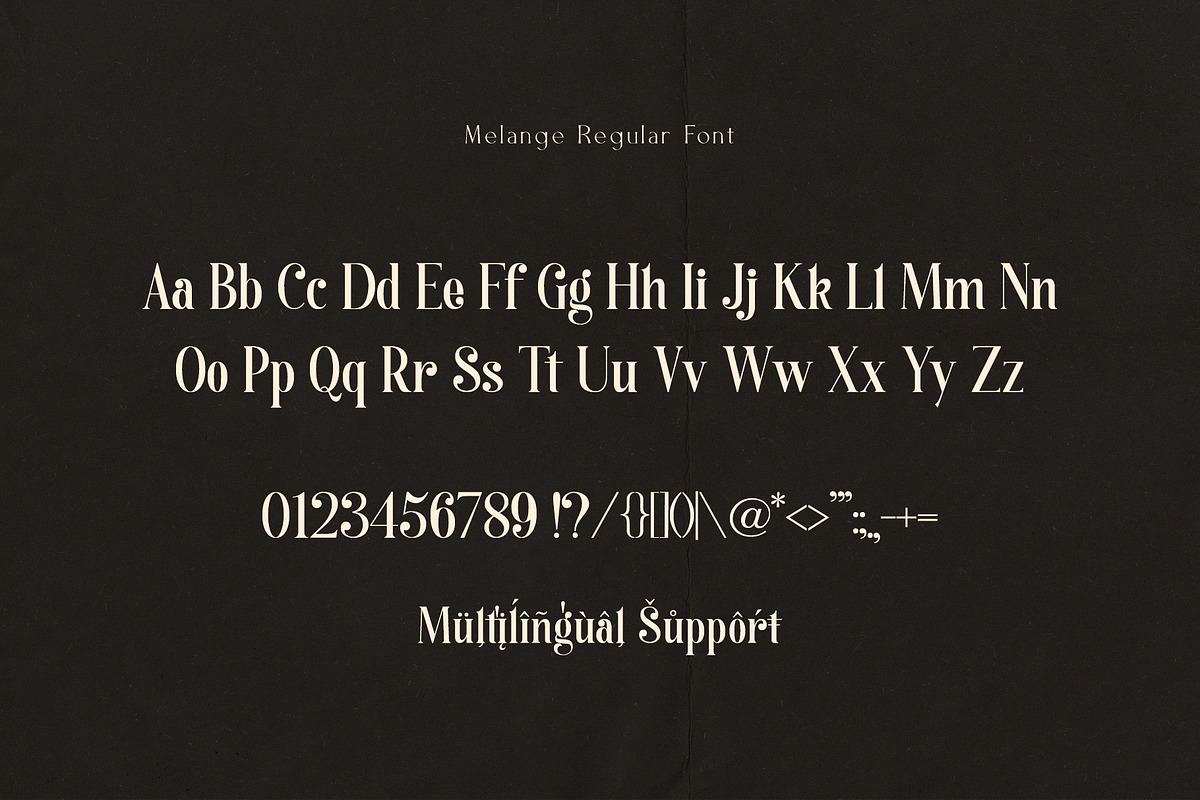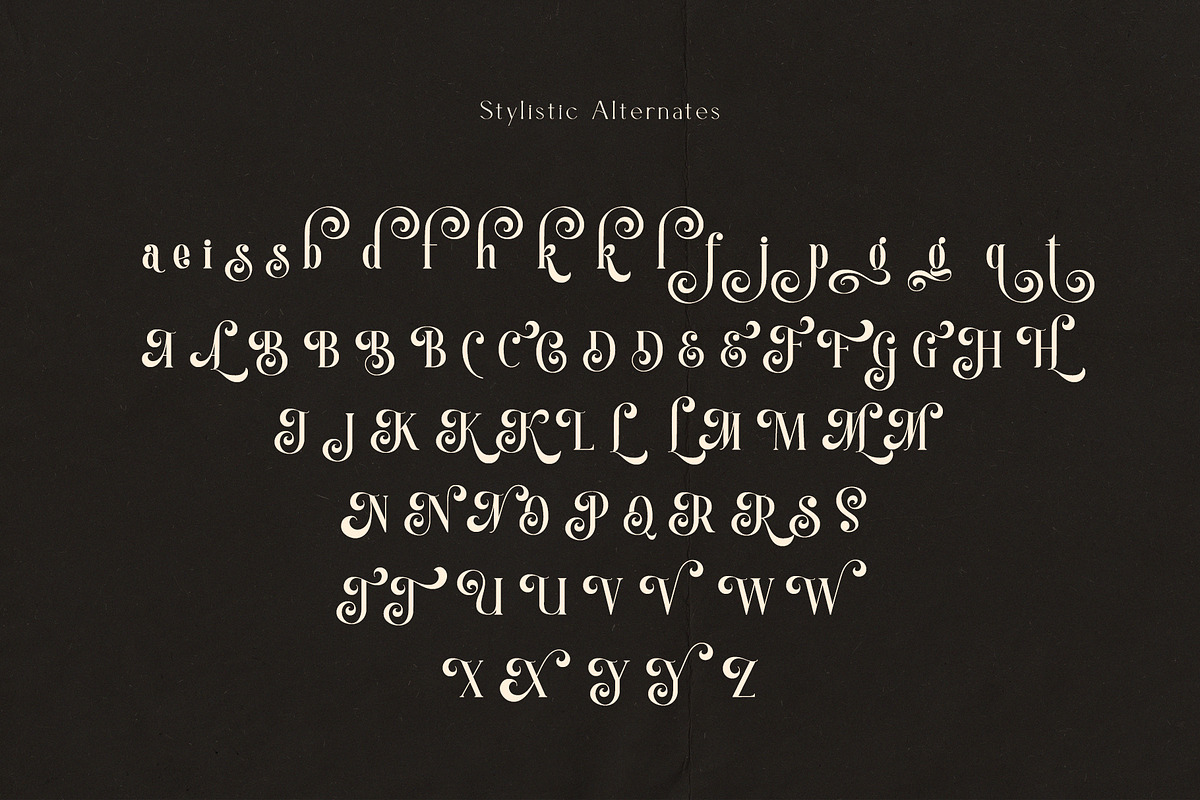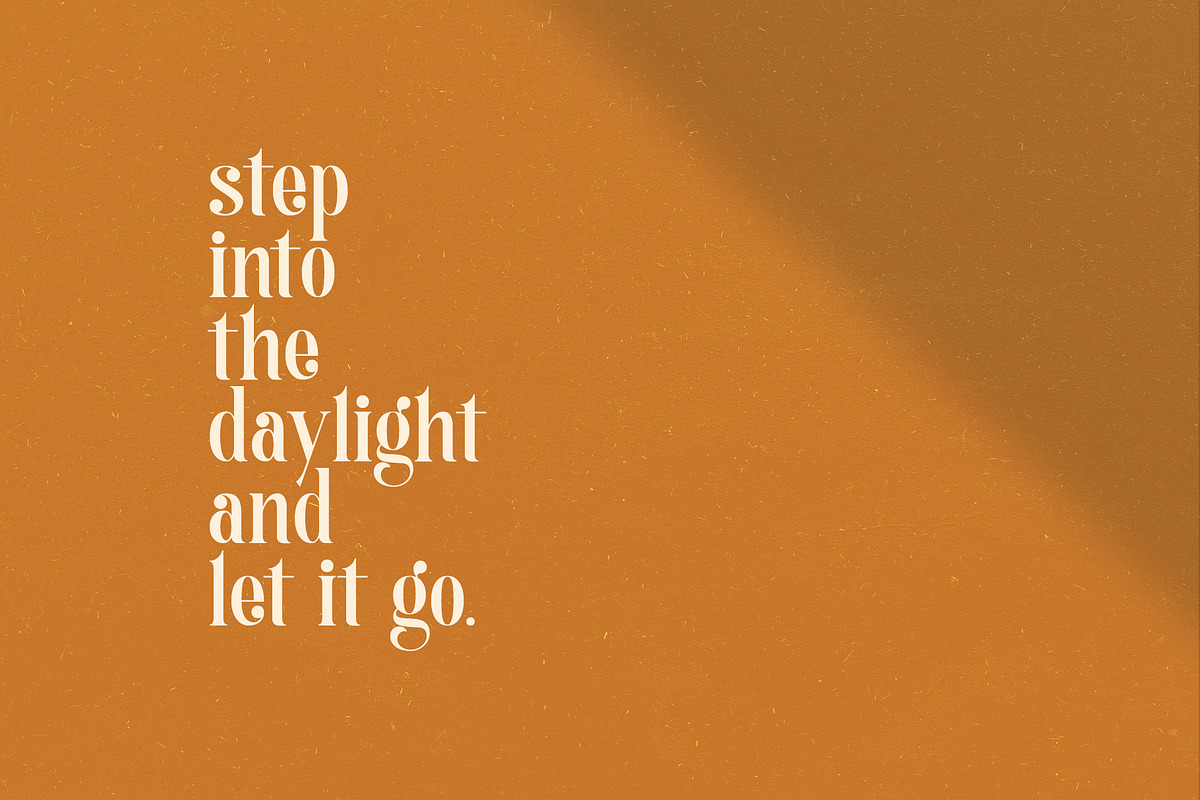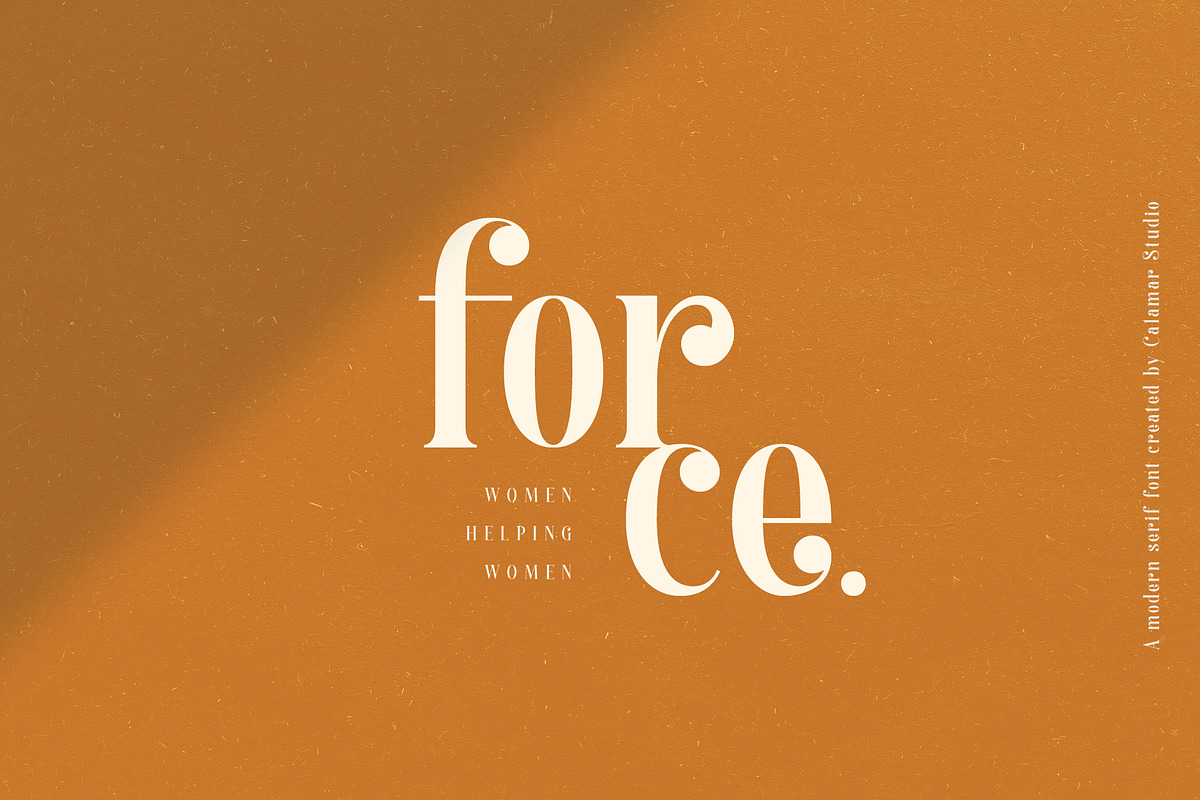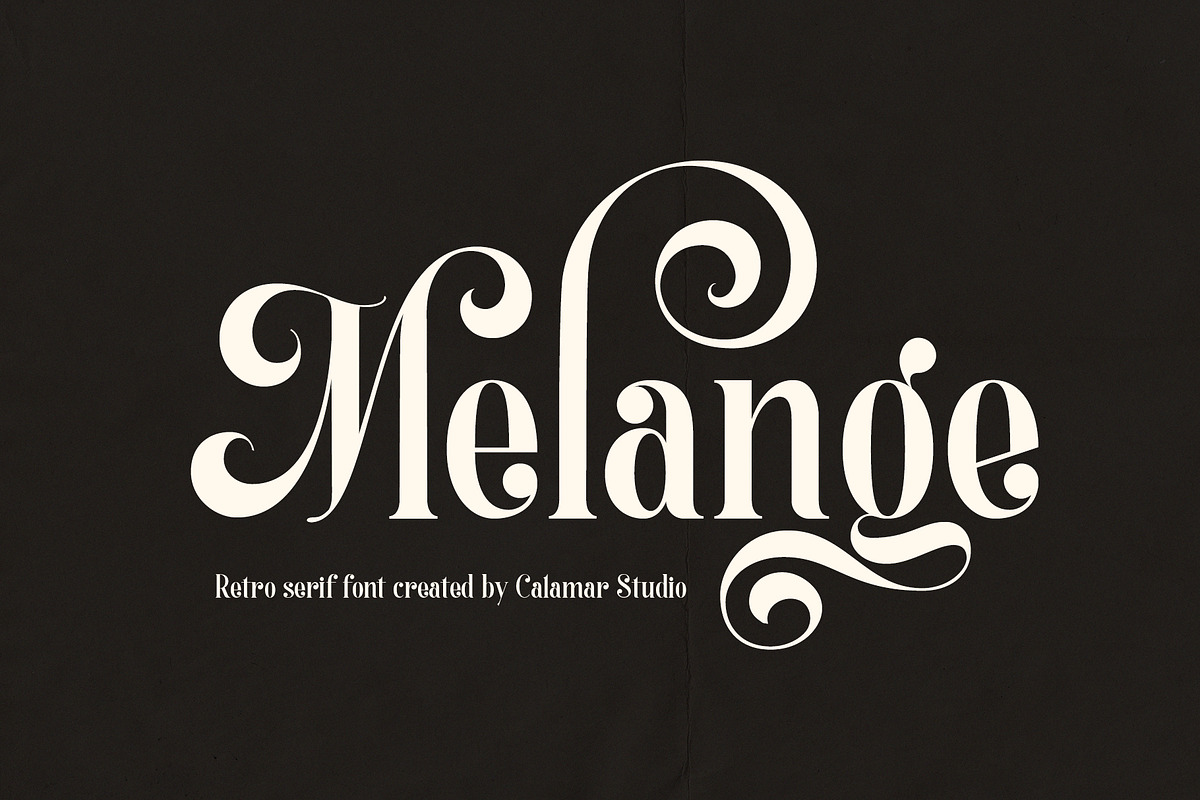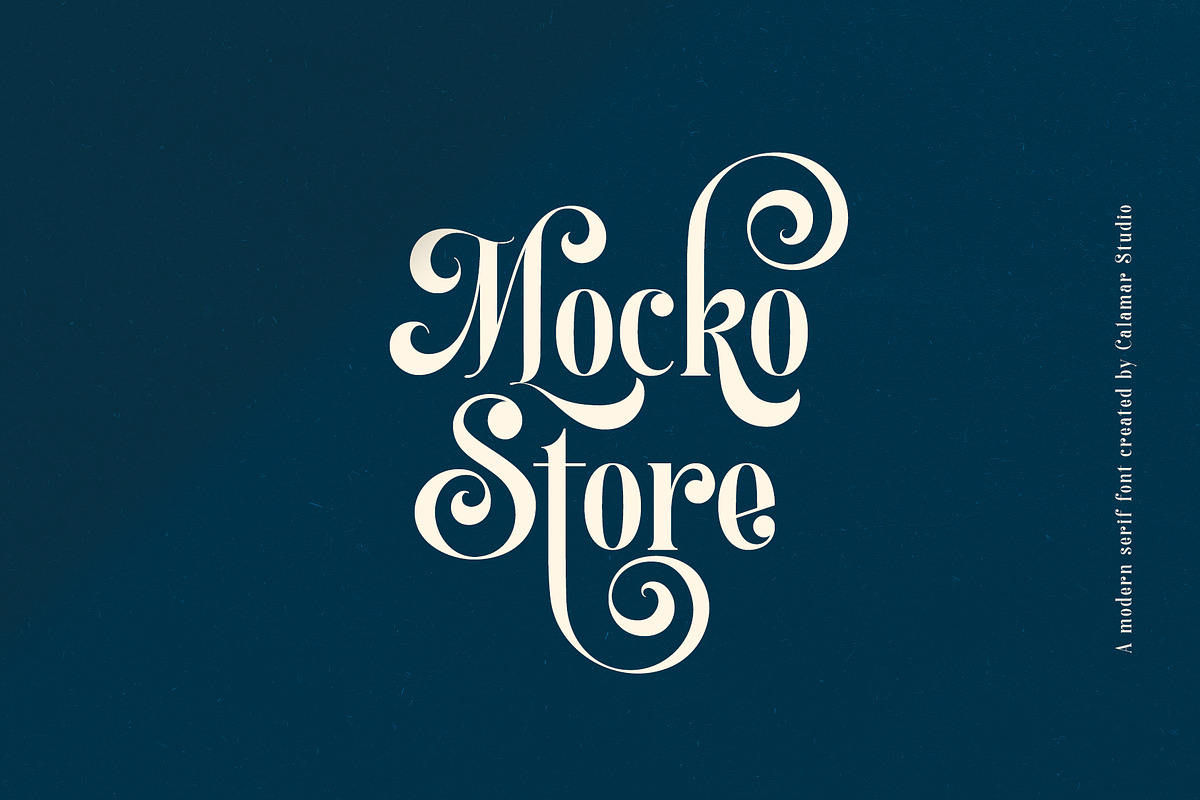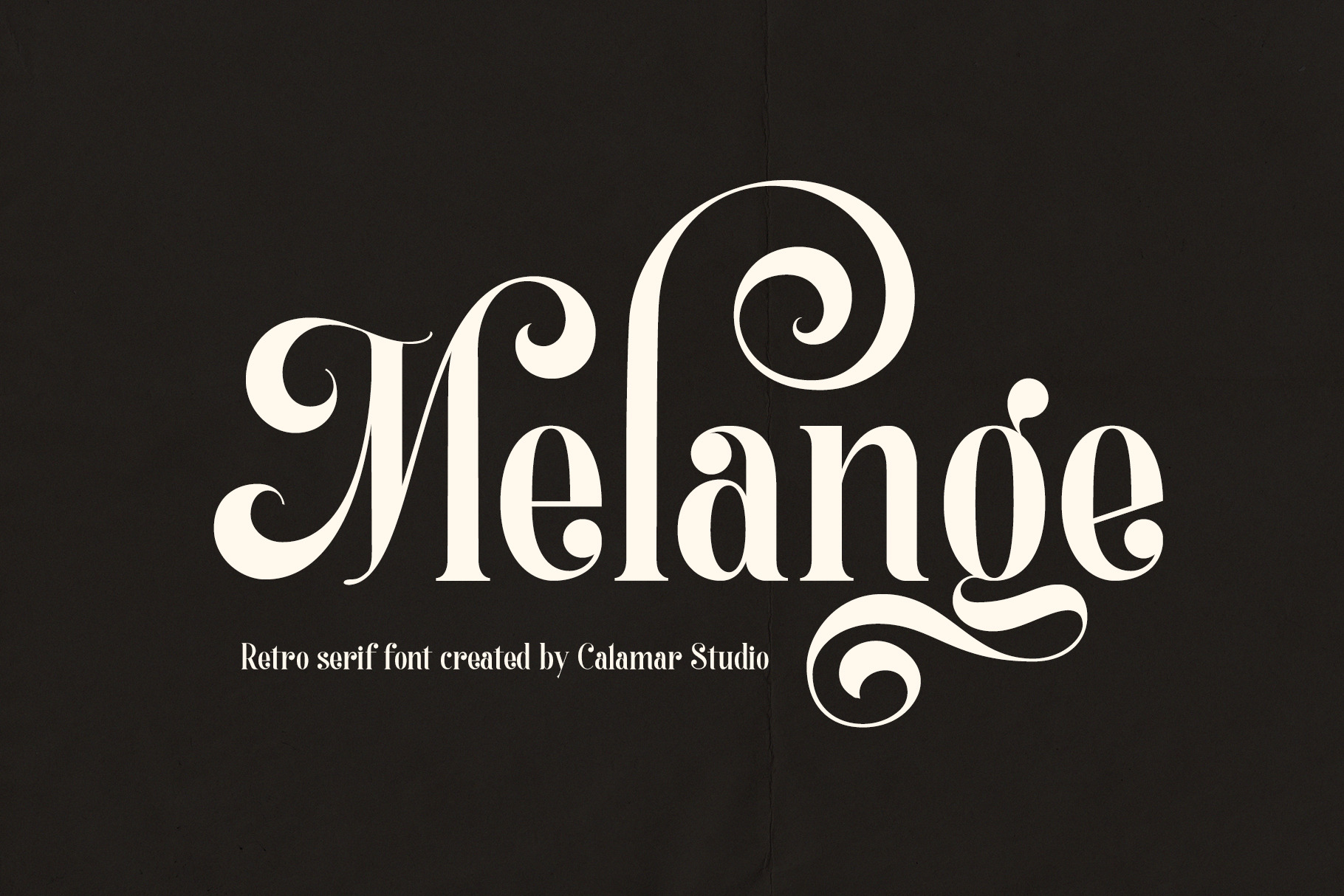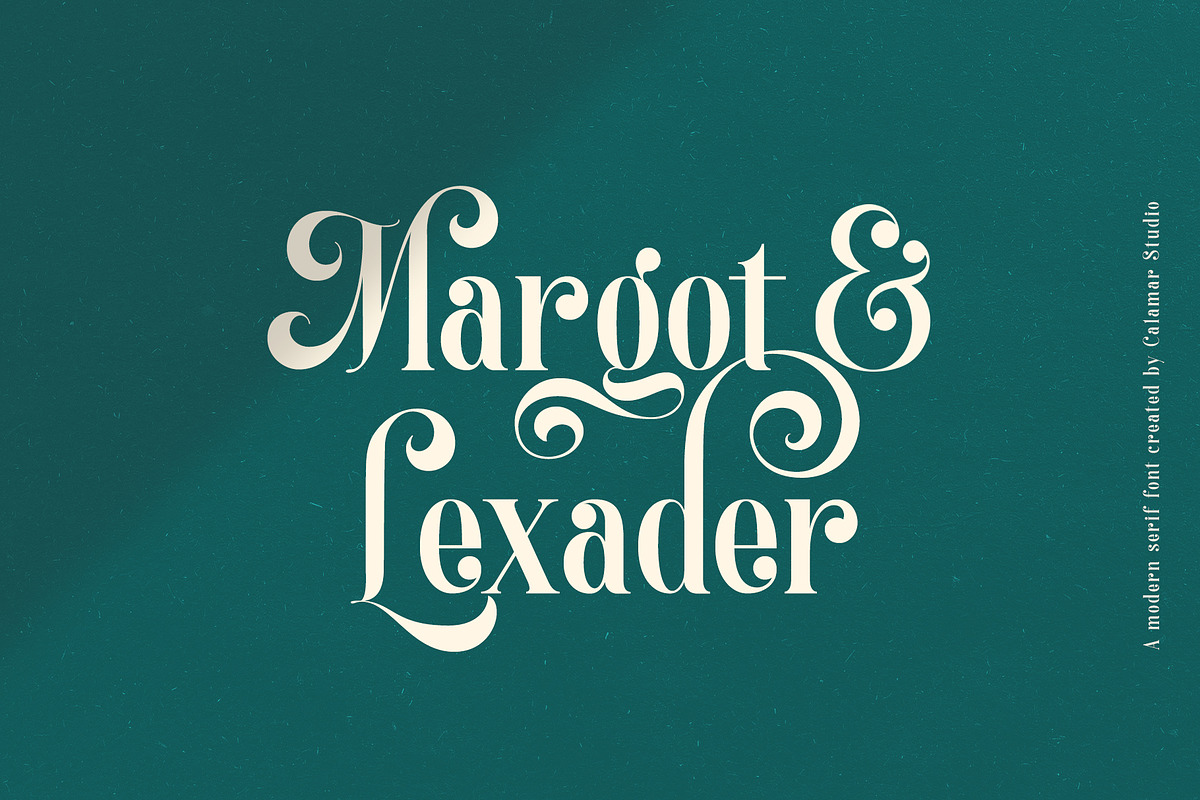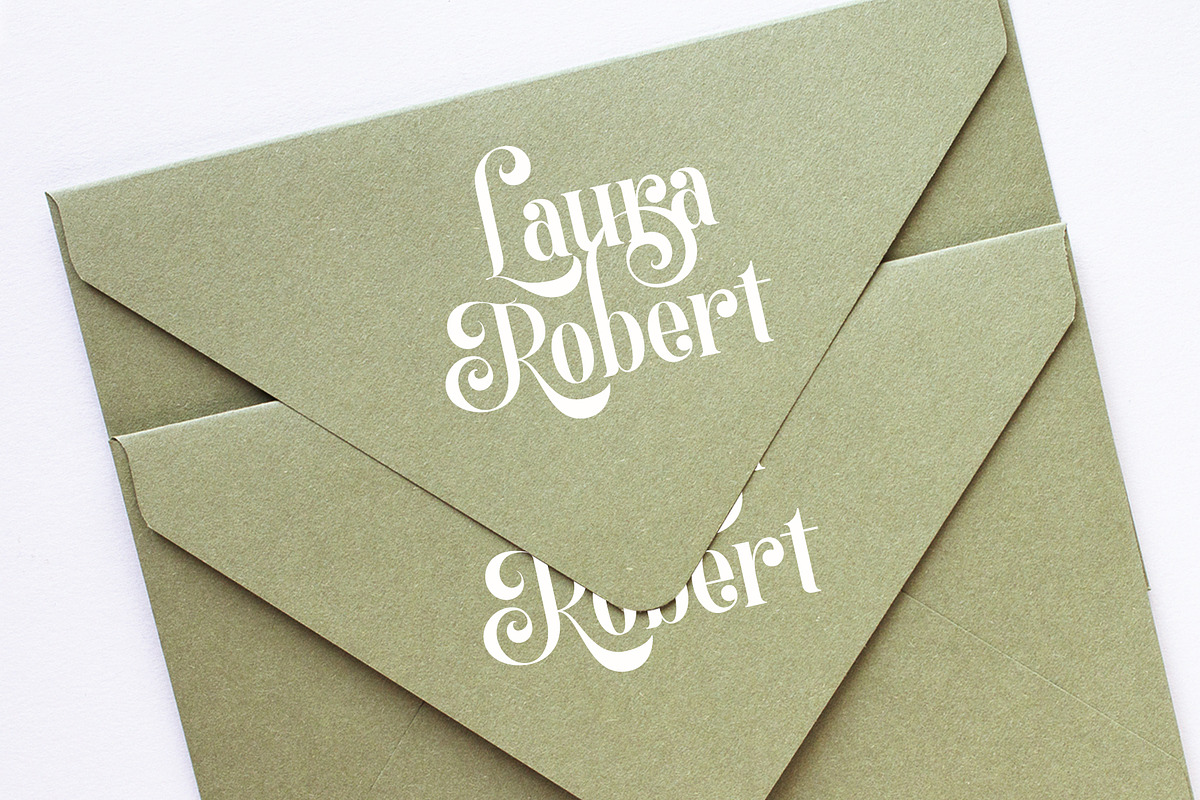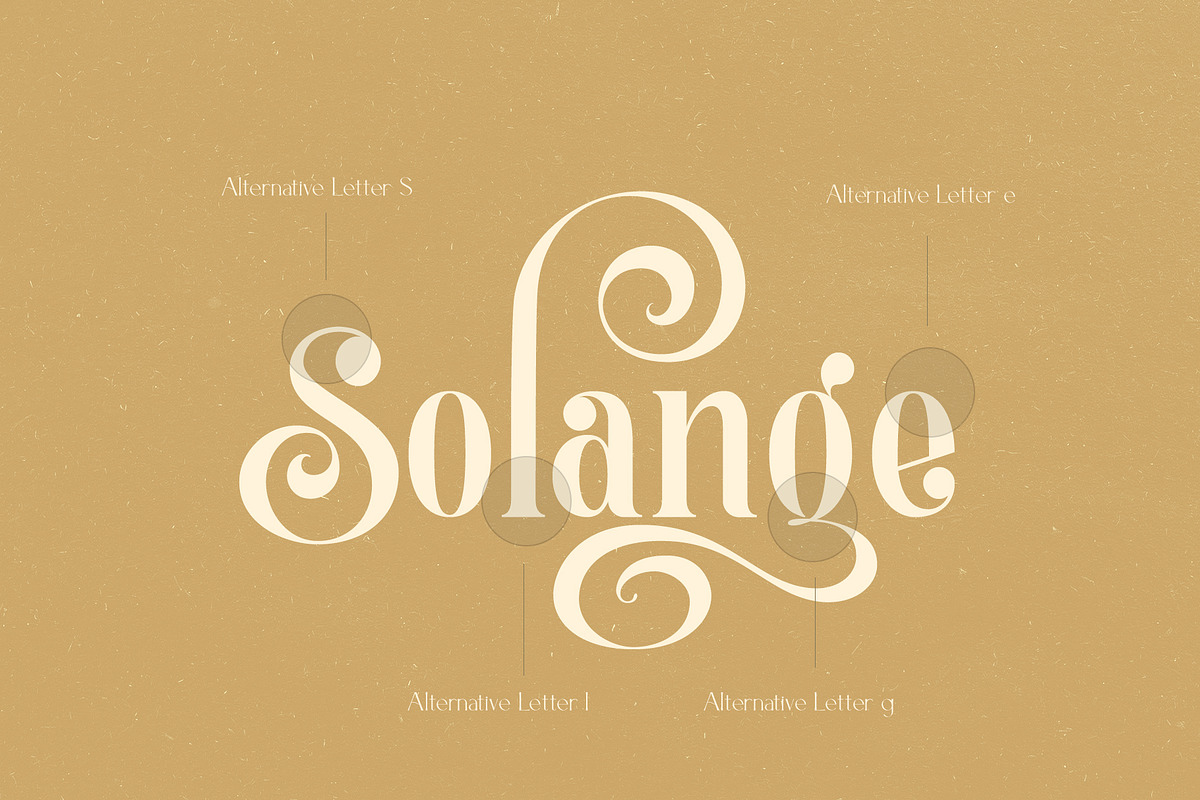
Melange | Retro Serif Font
Melange is my new serif font inspired by the good old past, but it still has a strong modern appearance. The font includes stylish alternate upper and lowercase characters. And that is why it's perfect match for logotypes, branding, wedding monograms and invitations, blog headlines, posters and much more.
Font is available for Western European, Central European and South Eastern European Languages. You can check your language typing characters in text box above.